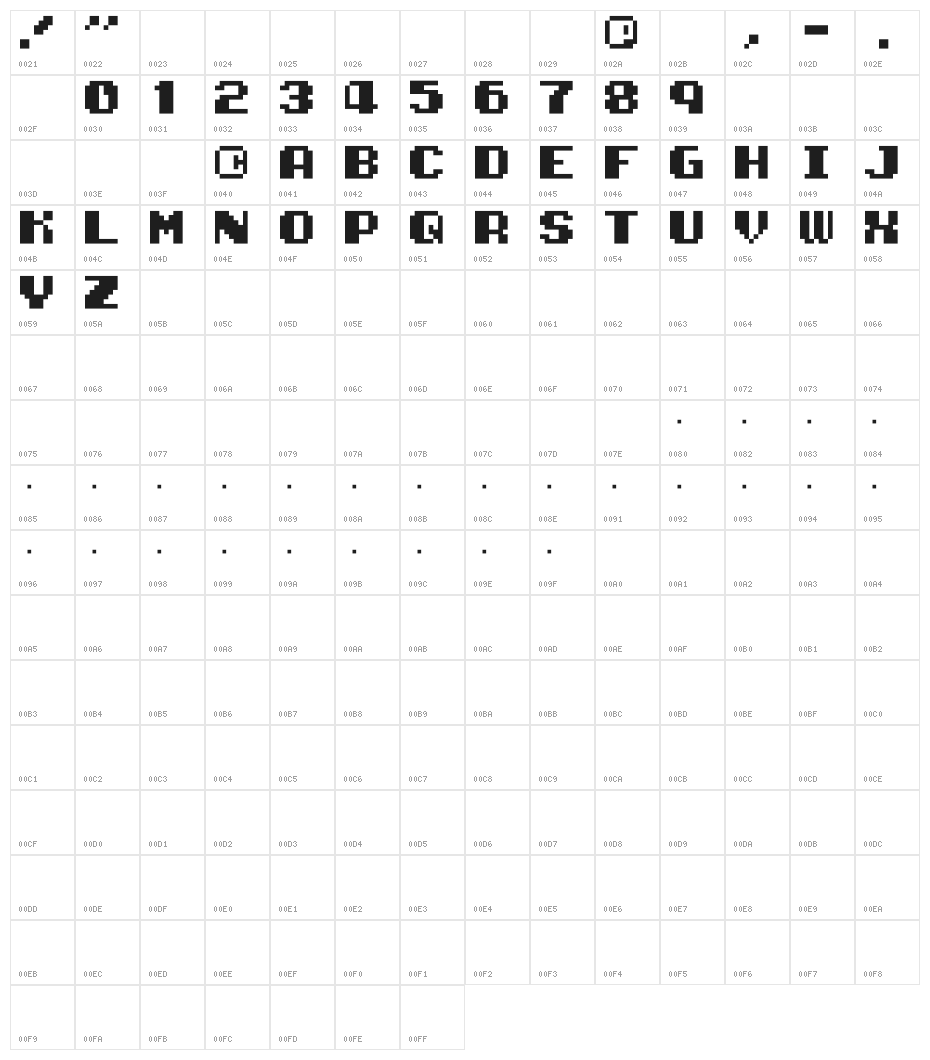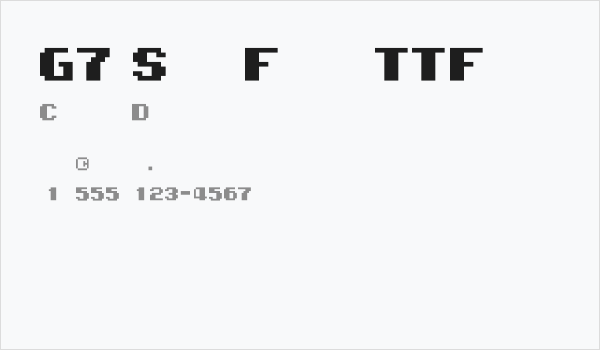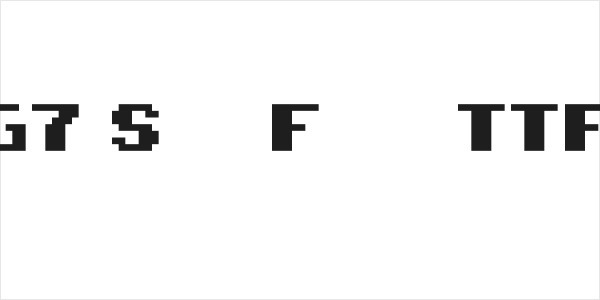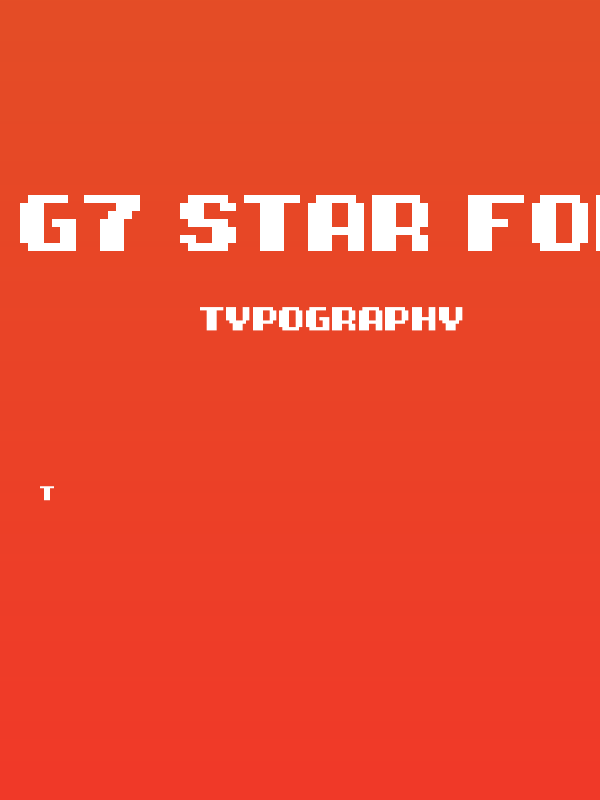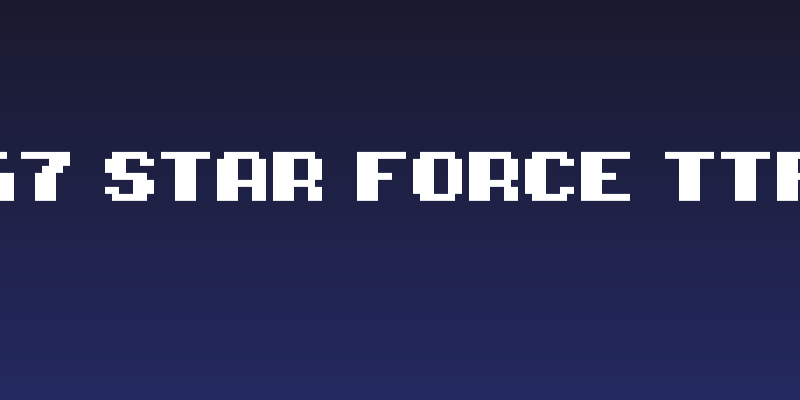
G7 Star Force TTF Font
| Gesamtstil | Retro, Digital, Futuristic |
| Vorgeschlagene Projekte | Ideal for video game design, retro-themed posters, digital art projects, and any creative work that seeks to evoke a sense of nostalgia or futuristic style. |